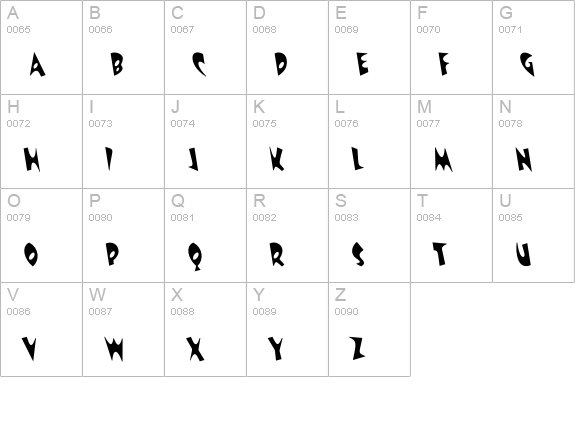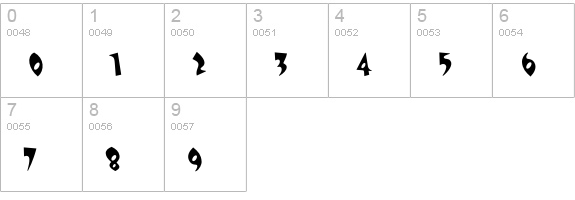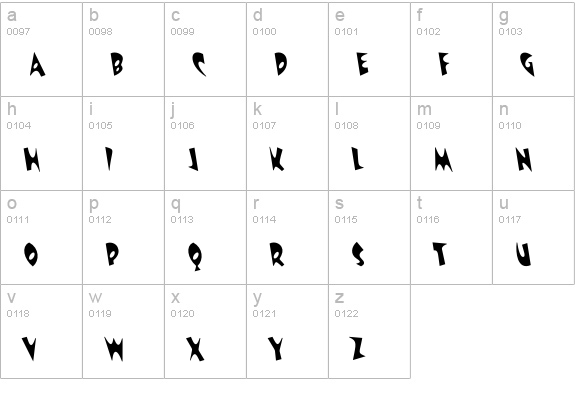
Revolver-Recoil Font Details
Introducing Revolver-Recoil, a captivating and dynamic font that will leave a lasting impression on any design project. With its bold and edgy style, this font exudes confidence and power, making it the perfect choice for headlines, logos, posters, and more. Revolver-Recoil boasts a unique combination of sharp angles and smooth curves, creating a balance between modernity and elegance. Each letter is meticulously crafted to ensure legibility and readability, even at smaller sizes. Its versatility allows it to be used in a variety of design contexts, from fashion magazines to album covers. One of the most remarkable features of Revolver-Recoil is that it is free! Yes, you read that right. This remarkable font is freely available to download at FontsMarket.com. Now, you can elevate your designs without worrying about breaking the bank. Whether you're a professional designer or a passionate hobbyist, this font is a must-have addition to your typographic arsenal. Revolver-Recoil is compatible with both Mac and PC operating systems, ensuring seamless integration into your design workflow. It supports a wide range of languages, making it accessible to designers from all corners of the globe. With its extensive glyph set, including numerals, punctuation marks, and special characters, you'll have all the tools you need to bring your creative vision to life. So why wait? Download Revolver-Recoil today and unleash the power of typography in your projects. Stand out from the crowd and make a statement with this modern and innovative font. Remember, it's free and readily available at FontsMarket.com, so there's no reason not to give it a try. Elevate your designs and captivate your audience with Revolver-Recoil.